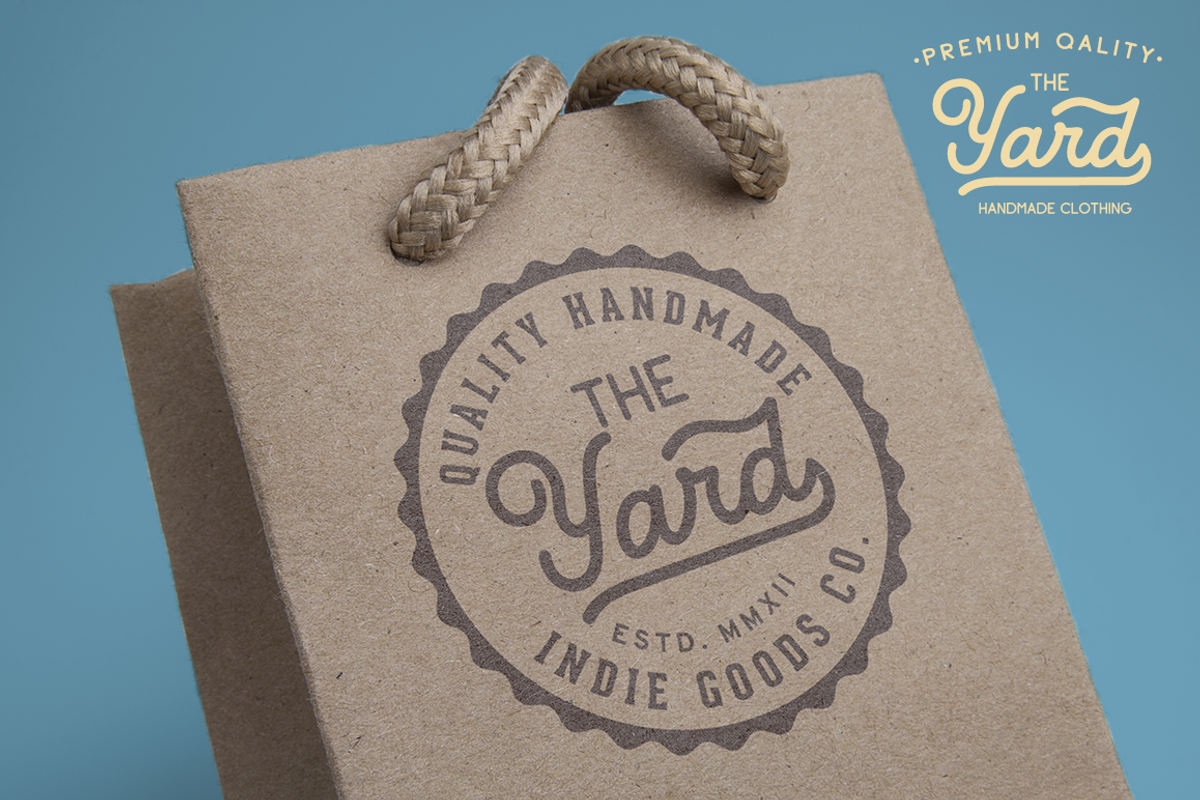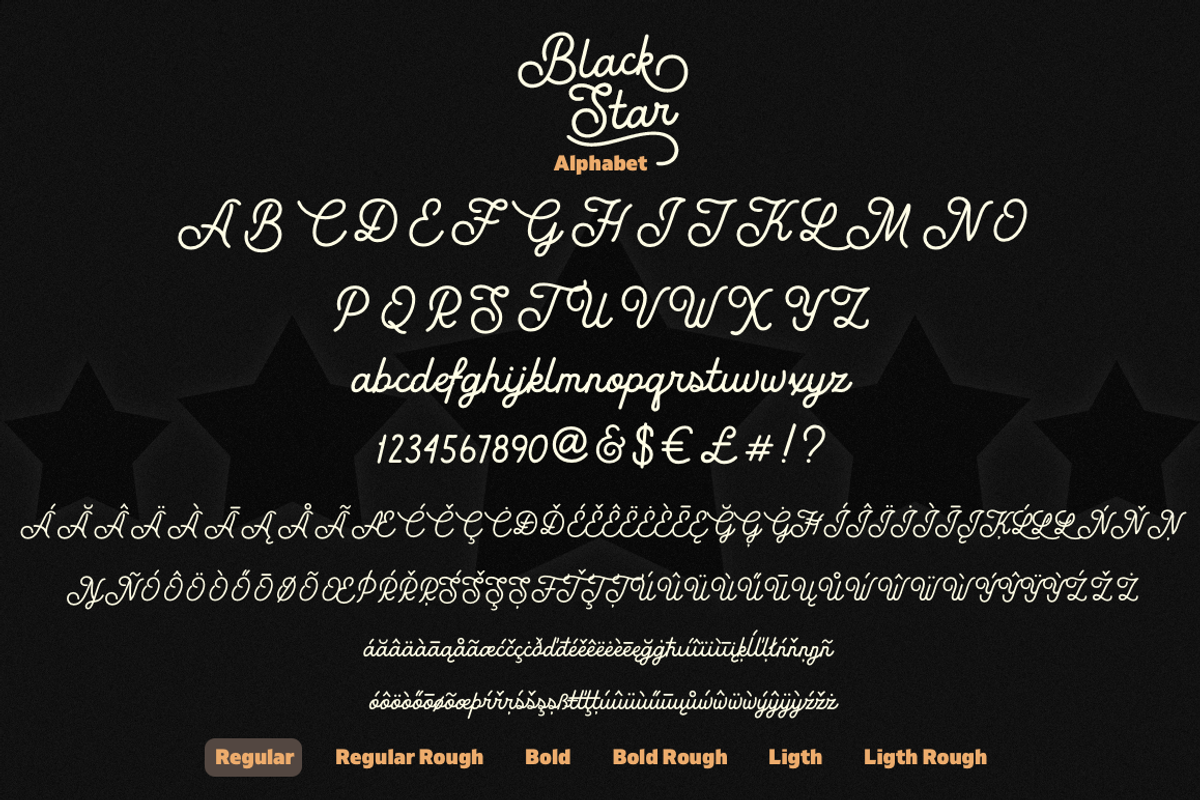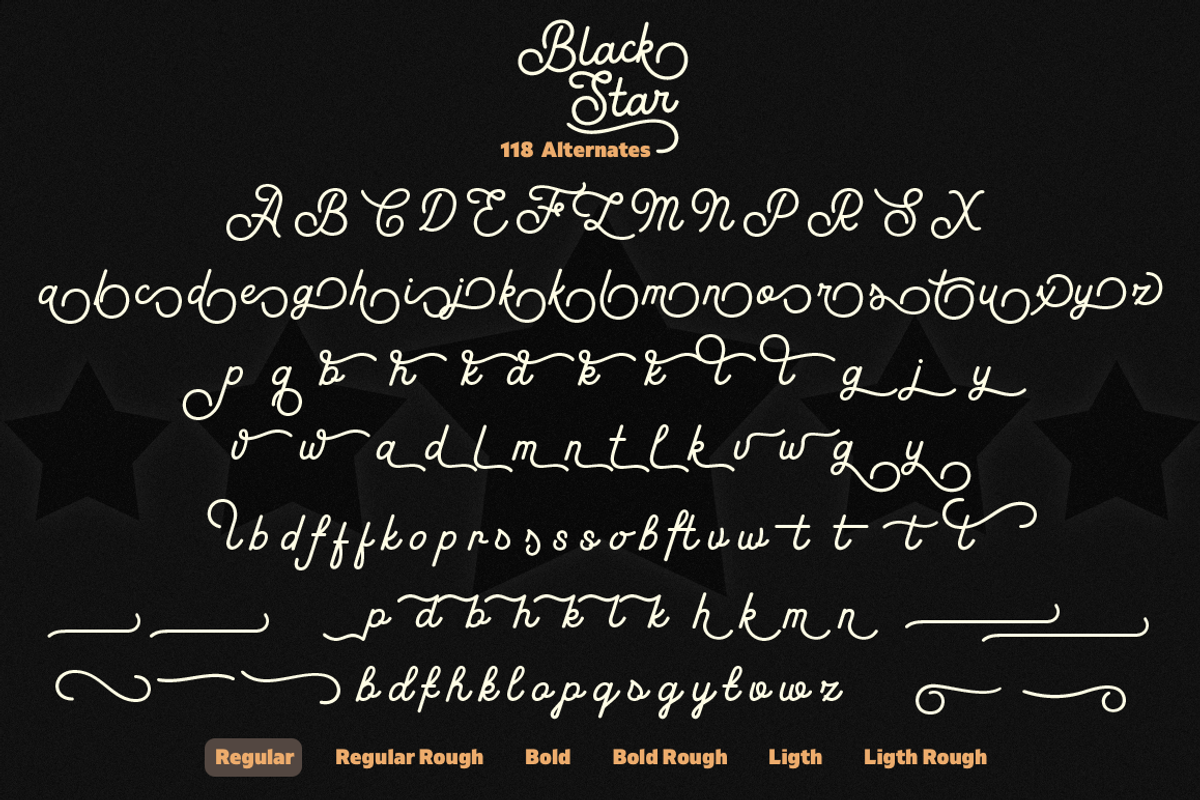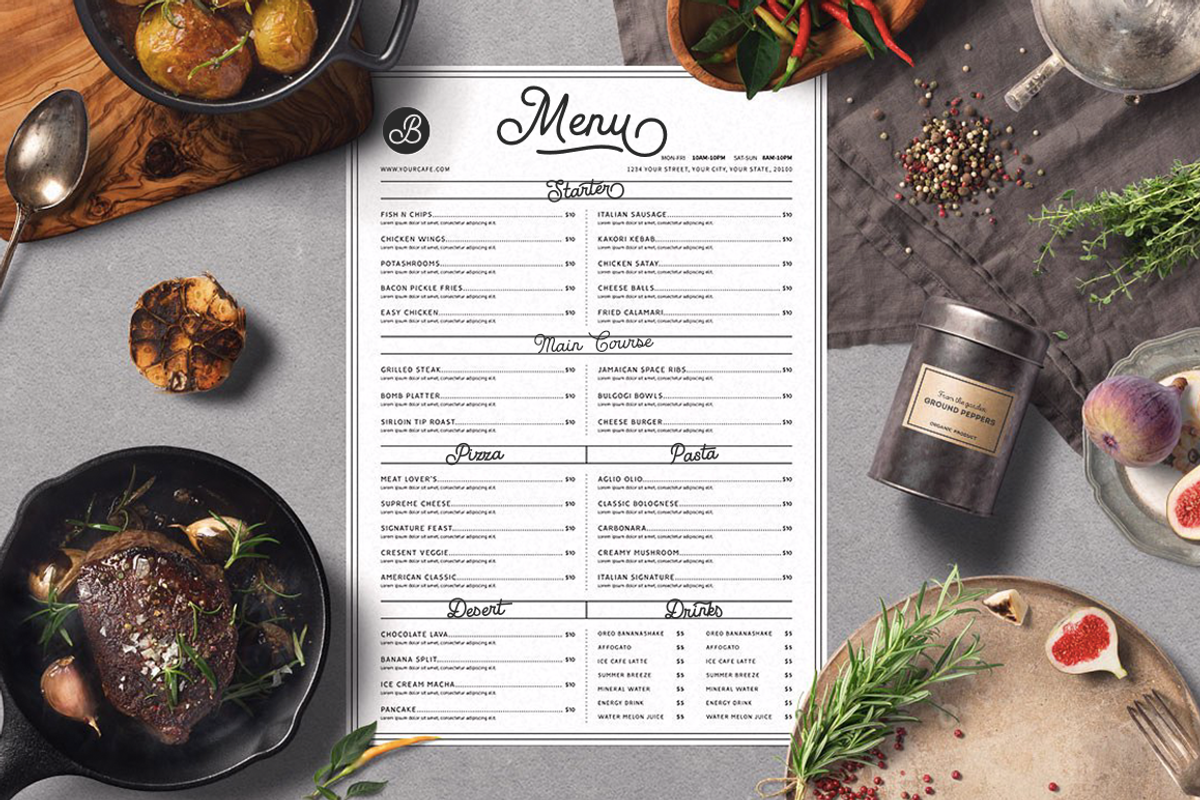
Black Star
Black Star- a new monoline font family.
This font is ideal for branding and decorate your any project, are perfect for wedding invitation or your blog. Also with their help, you can create a logo or beautiful frame for your home. Or just use for your small business, book covers, stationery, marketing, magazines and more. Also for you, I have prepared many alternates so that you can make your project unique.
Following international symbols support: ÀÁÂÃÄÅĄÇĆÈÉÊËĘÌÍÎÏÐÑŃŁÒÓÔÕÖØÙÚÛÜŚŠŸÝŹŻŽßàáâãäåçèéêëìíîïðñòóôõöøùúûüýÿąćęłńśšźżž